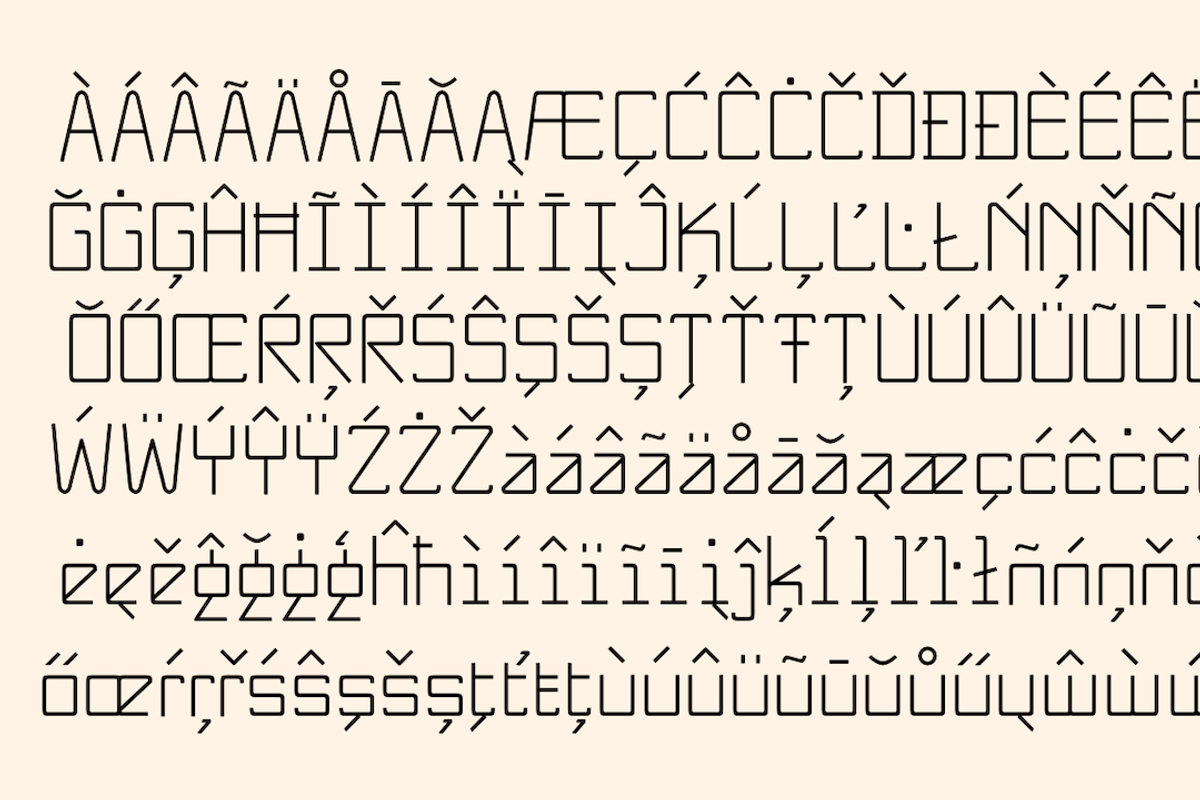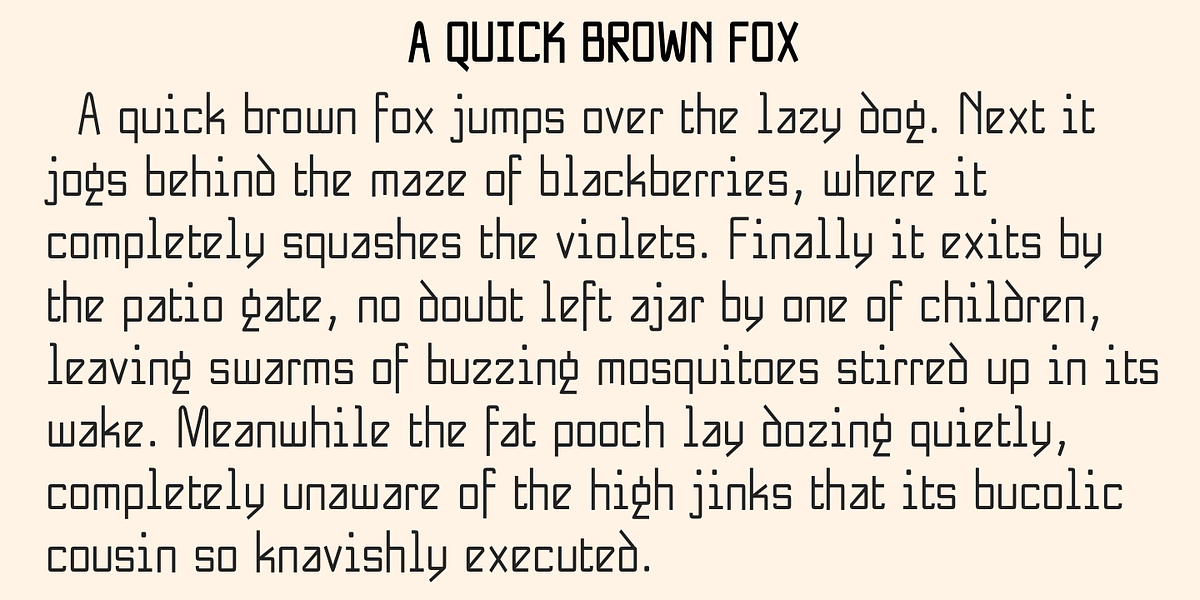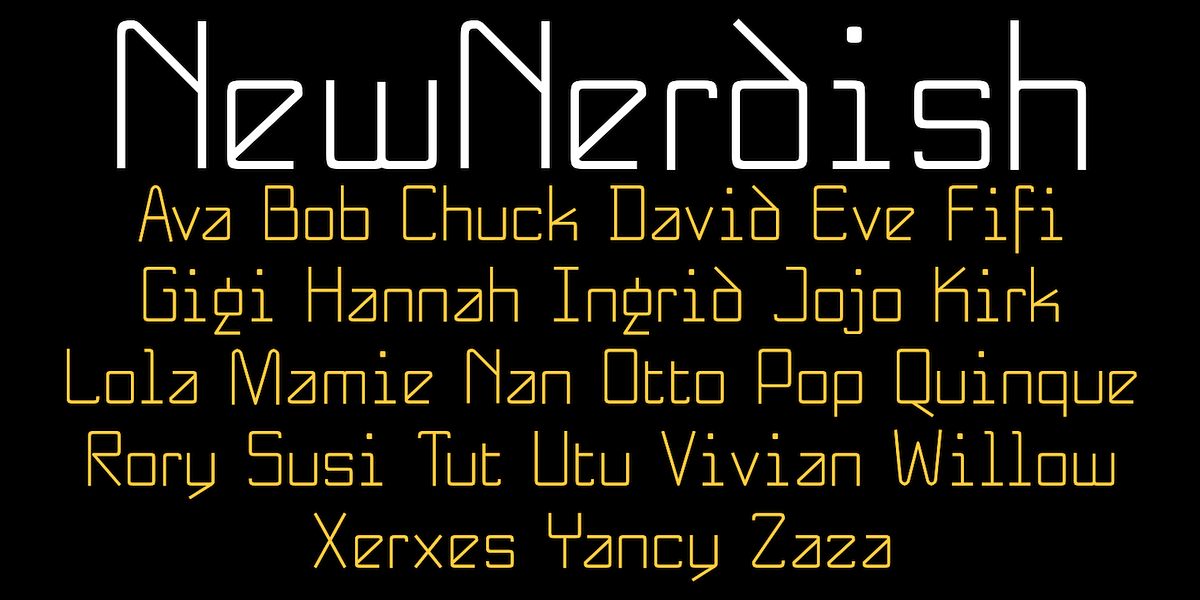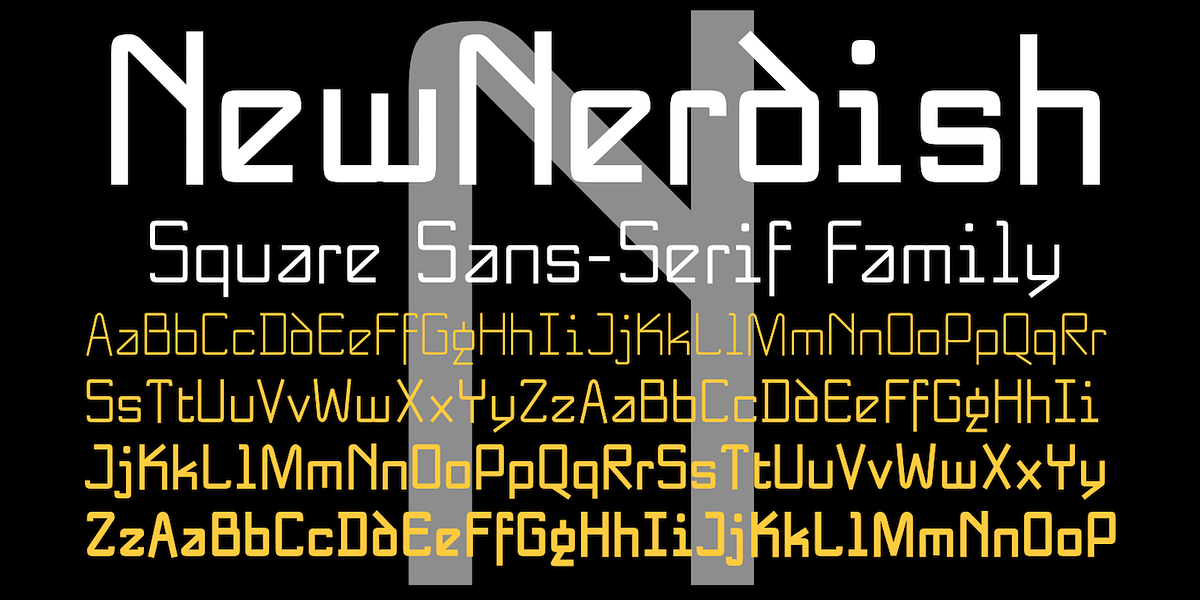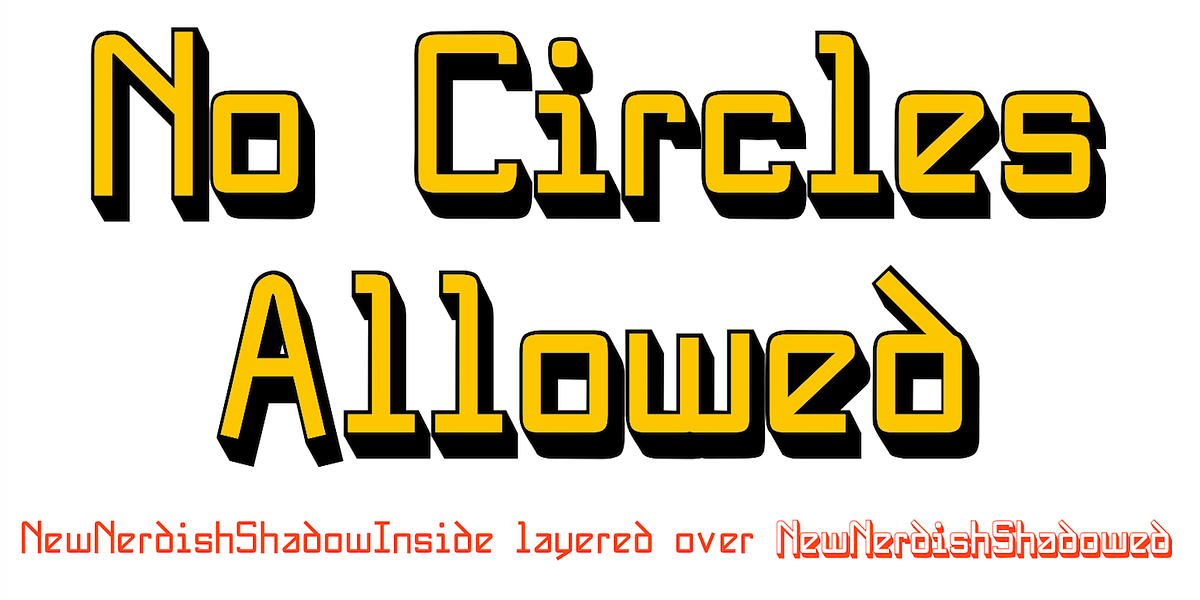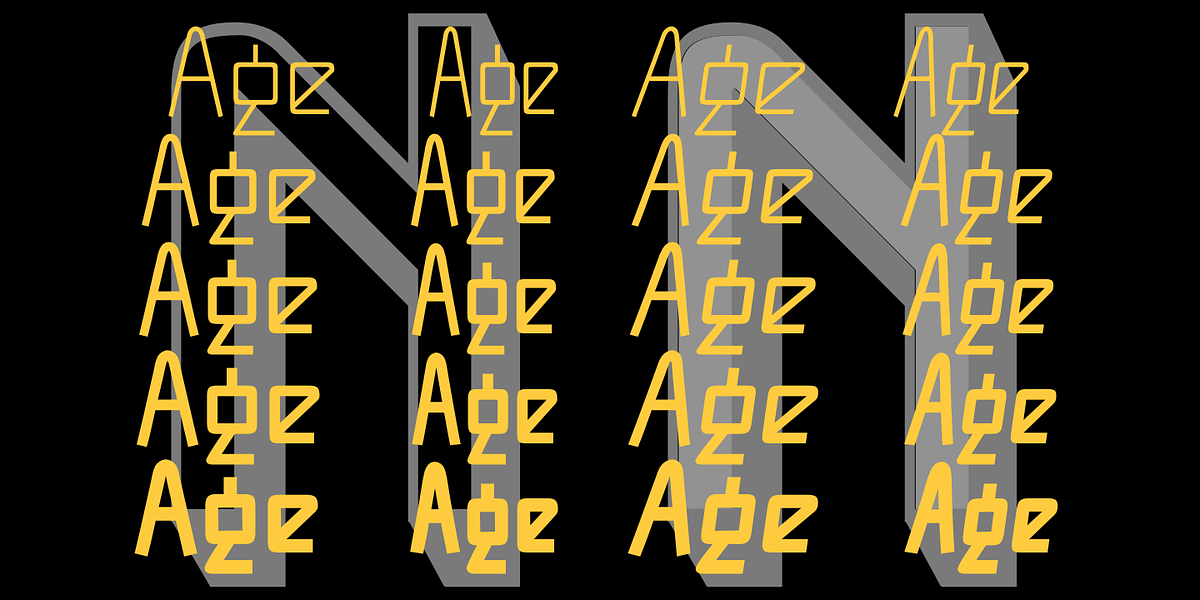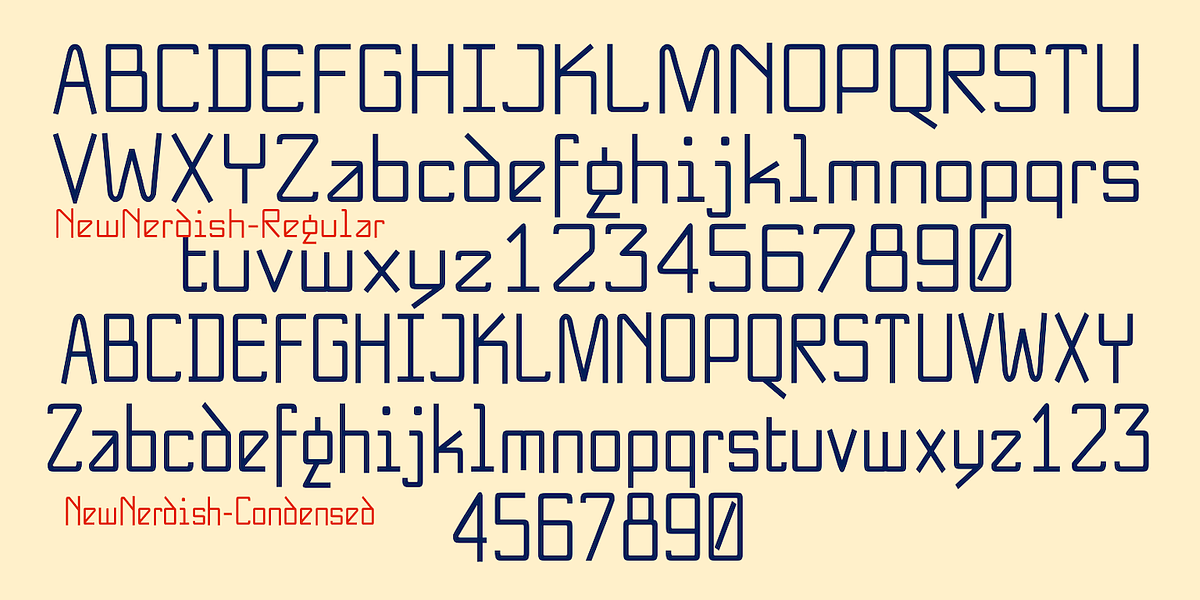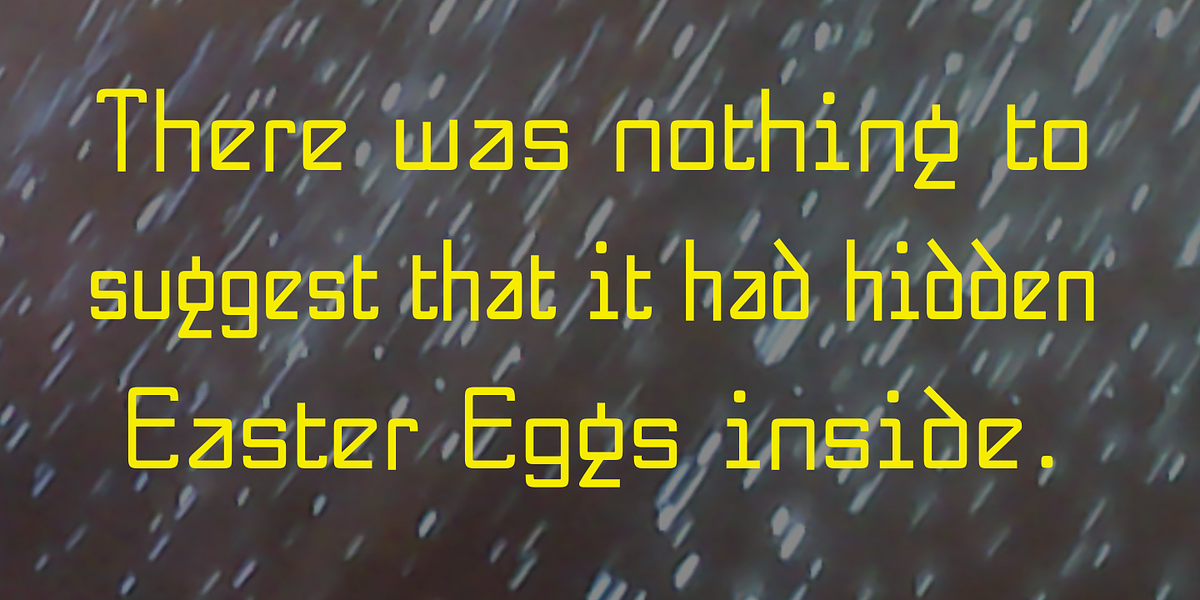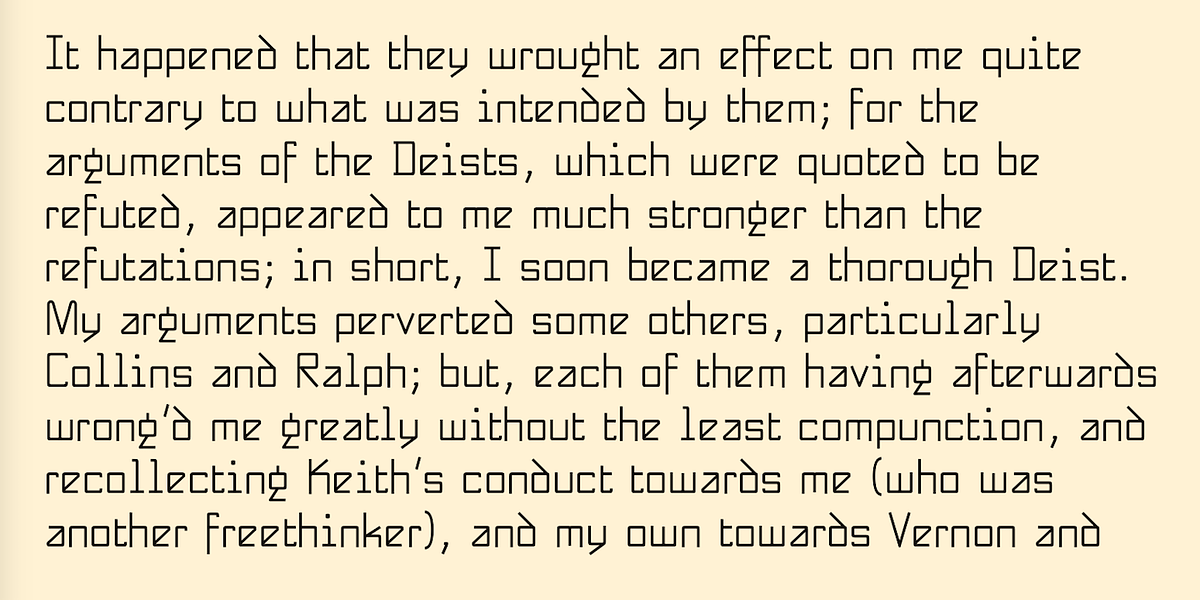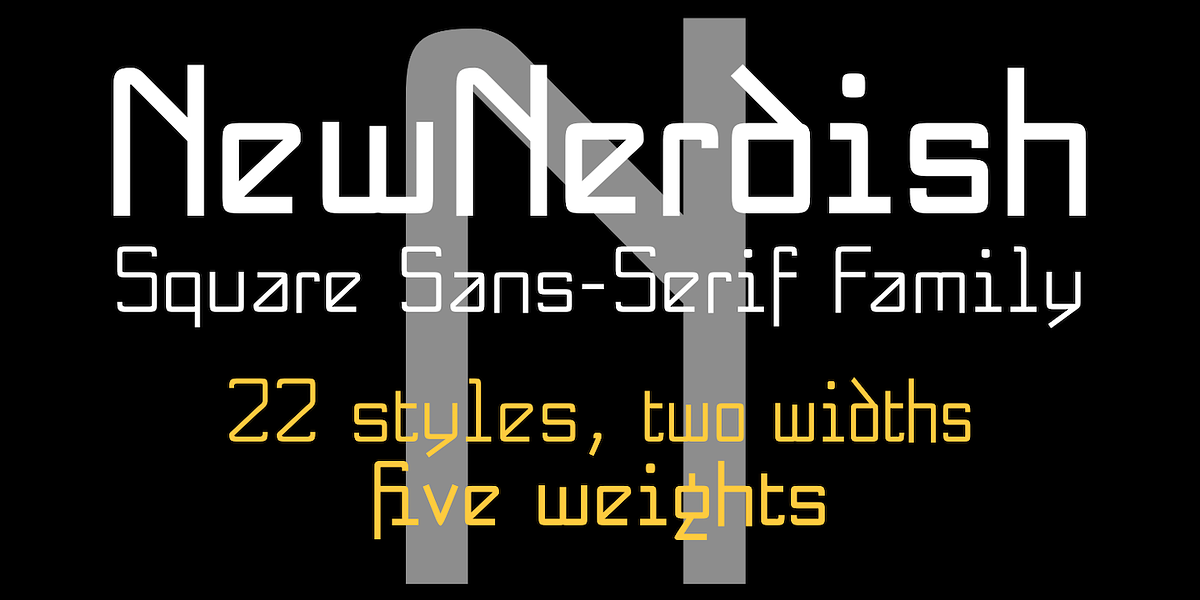
NewNerdish
NewNerdish is a geometric sans-serif typeface characterized by its distinct square-like circular elements. This gives it a modern and technological appearance often associated with computer interfaces and futuristic designs. The font features minimal stroke variation, resulting in a clean and precise aesthetic. It comes in two widths (condensed and normal) each with five weights, ranging from thin to bold, along with corresponding oblique versions.